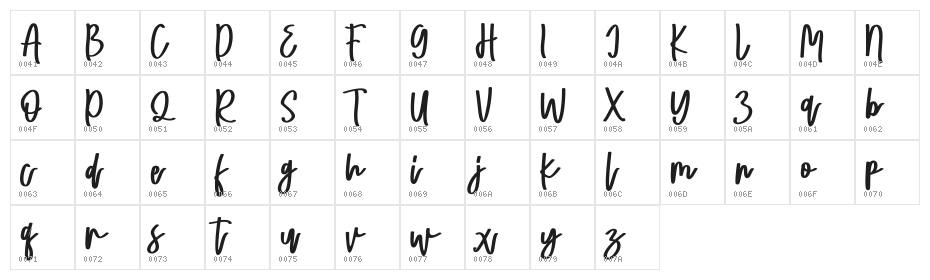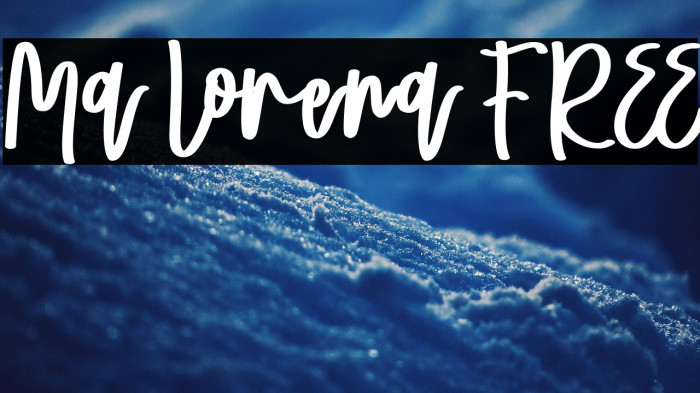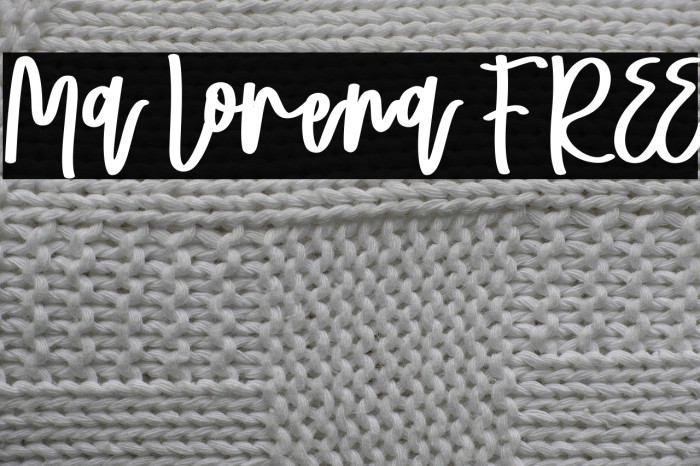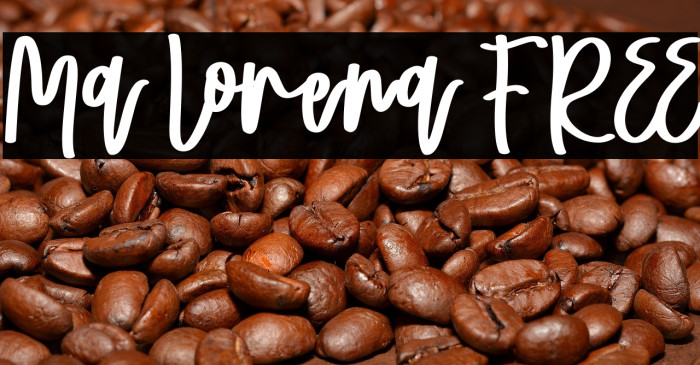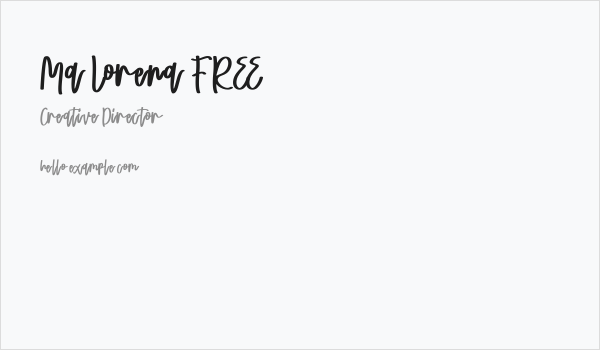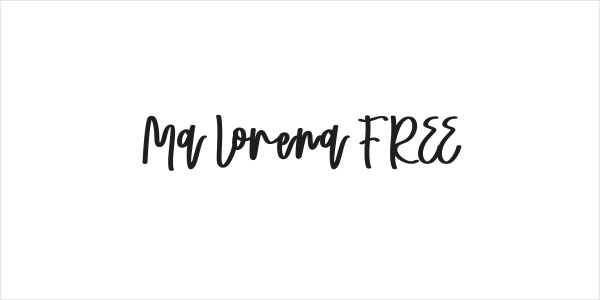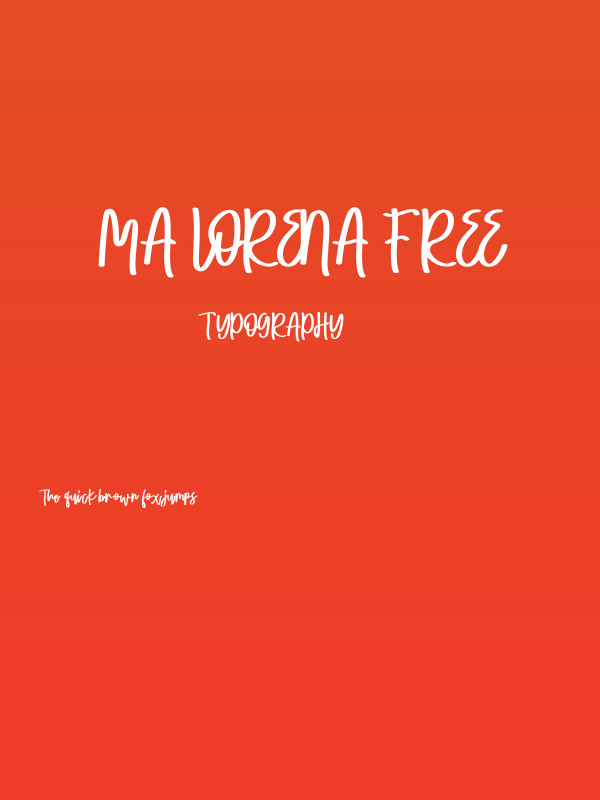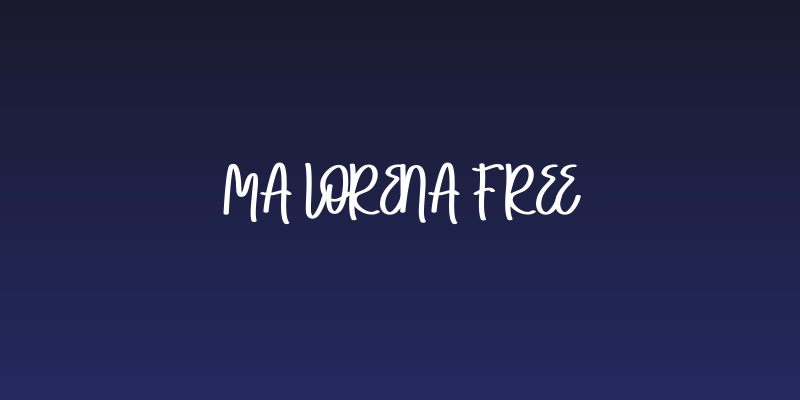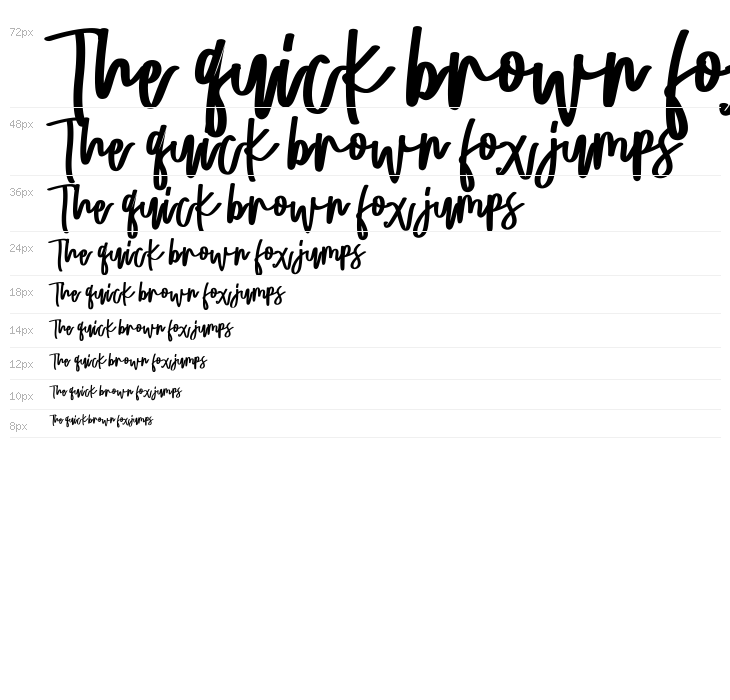
Ma Lorena FREE Font
Ma Lorena FREE Description
This font features a lively and dynamic handwritten style, characterized by its bold and flowing strokes. The letters are interconnected with a natural rhythm, giving it a casual yet artistic appearance. The uppercase and lowercase letters maintain a consistent style, with a playful and slightly exaggerated form. The numbers and special characters are equally expressive, fitting seamlessly into the overall design. This font exudes a sense of creativity and personal touch, making it ideal for projects that require a humanistic and approachable feel.
| Proposed Projects | This font is perfect for creative projects such as greeting cards, invitations, personal branding, and social media graphics. Its expressive style also suits artistic posters and DIY crafts. |